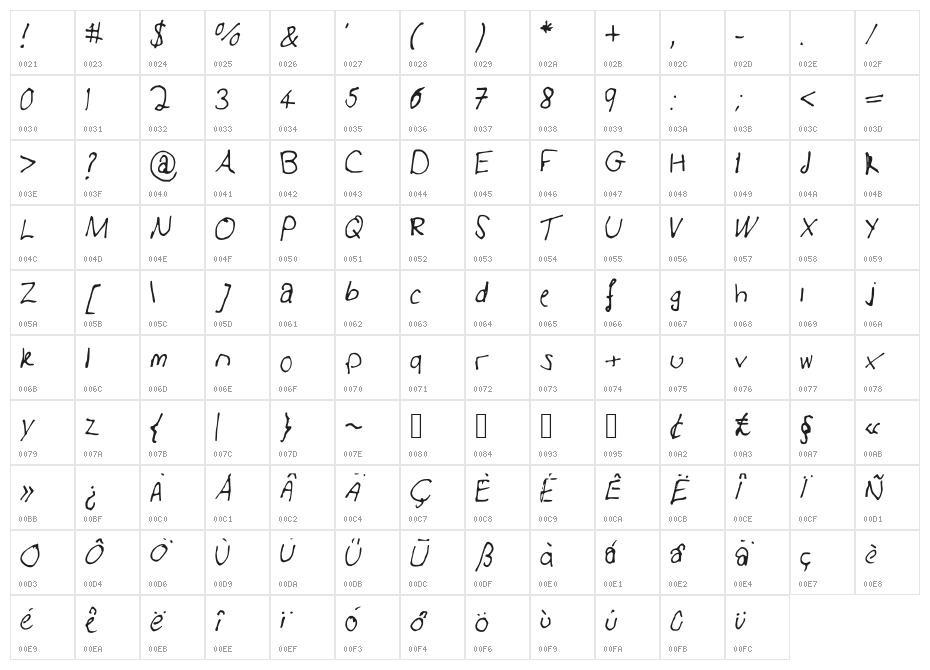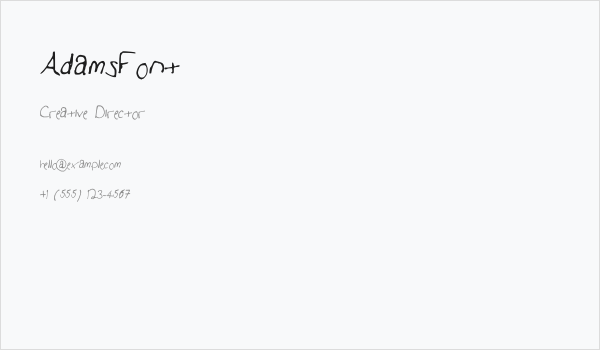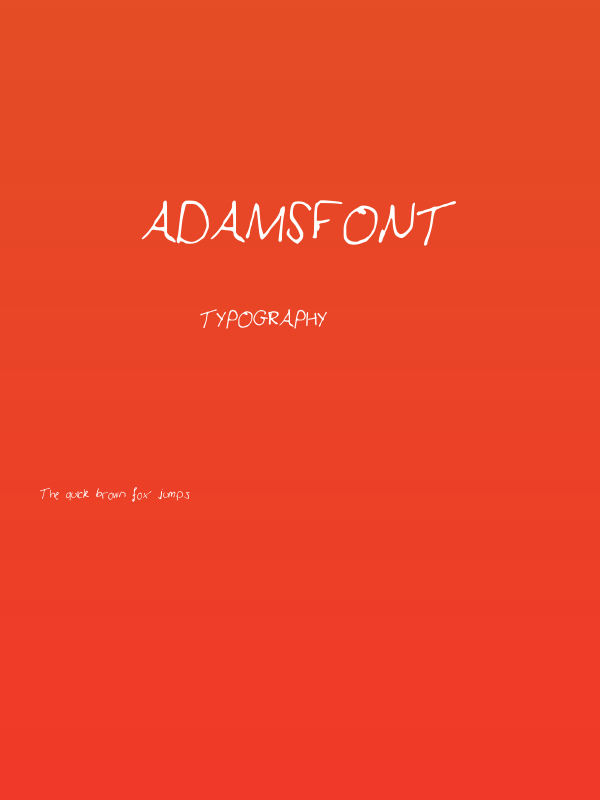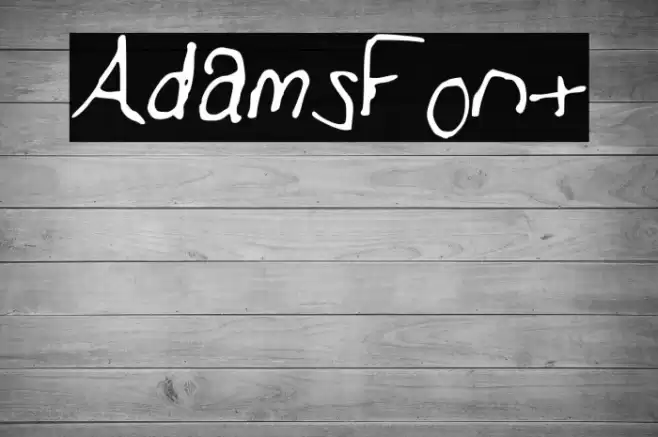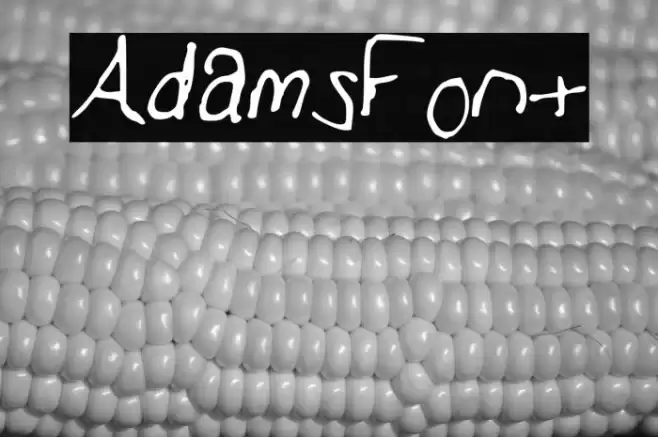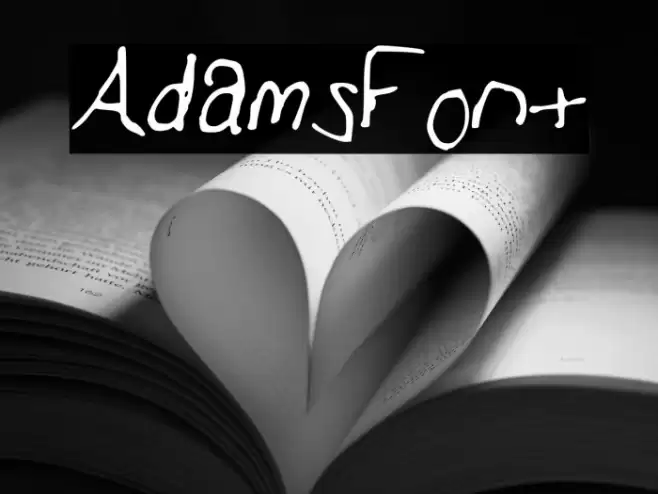
AdamsFont Font
AdamsFont Description
This font exhibits a playful and informal handwritten style, characterized by its irregular strokes and casual appearance. The letters are slightly tilted, giving a dynamic and lively feel. The uppercase and lowercase letters maintain a consistent style, with some variations in stroke thickness that add to the font's charm. The numerals and special characters follow the same whimsical design, making the font suitable for creative and informal projects. The overall look is approachable and friendly, perfect for conveying a personal touch.
ADAMSFONT UPPERCASE
ADAMSFONT LOWERCASE
ADAMSFONT OTHER CHARS
| Proposed Projects | Ideal for greeting cards, children's books, personal blogs, and creative branding projects. |